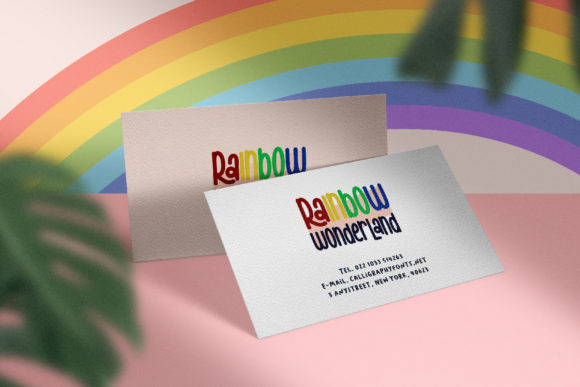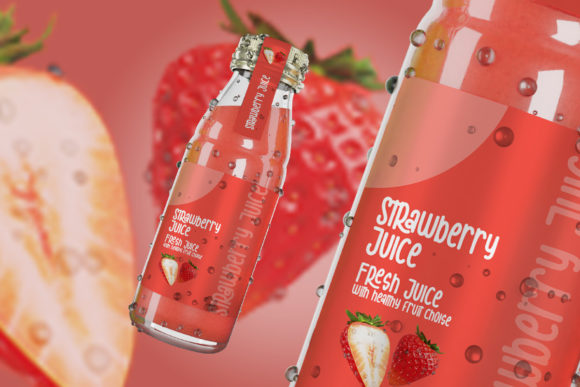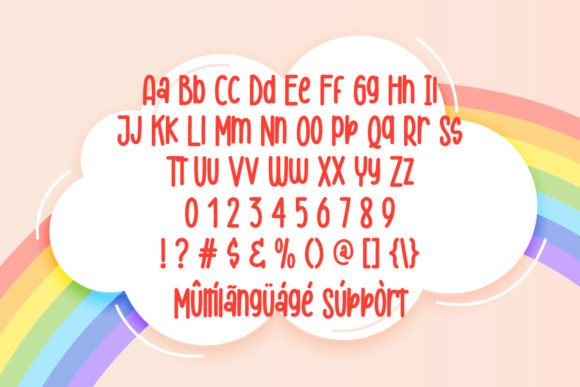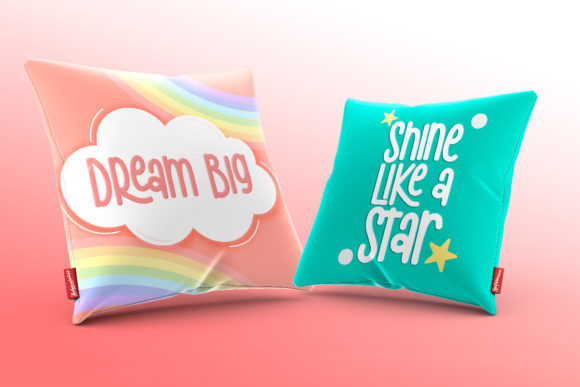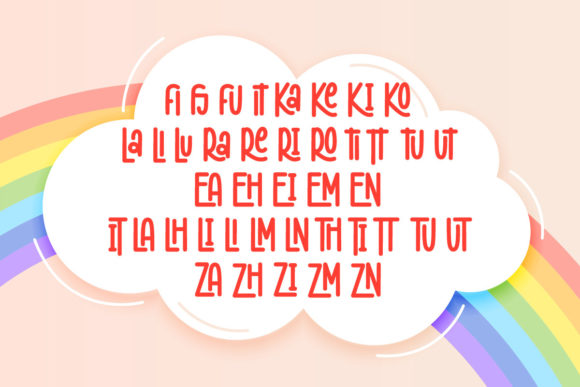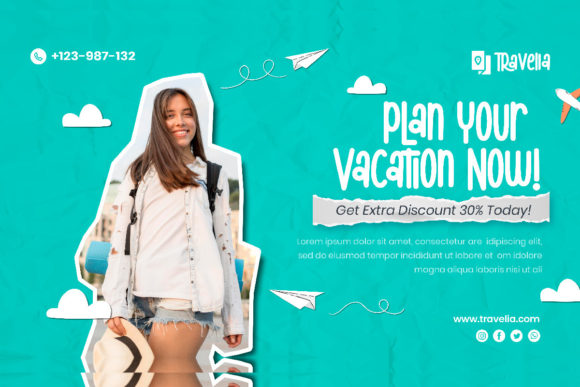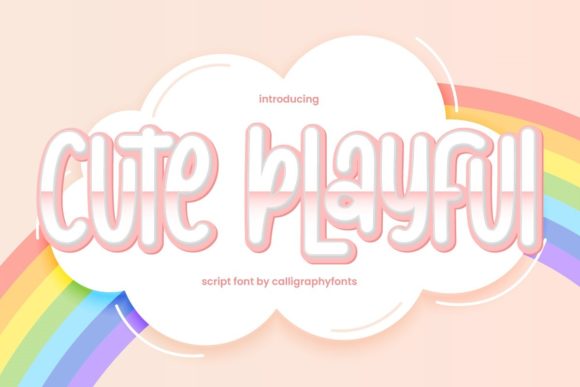
Cute Playful Font: Add a Touch of Whimsy to Your Creative Projects
Are you looking for a font that can add a dash of fun and friendliness to your creative projects? Look no further than the Cute Playful Font! This delightful display font is perfect for a variety of projects, from storybooks and magazines to children’s designs and more. With its cartoon/comic feel, this font is sure to bring a smile to your audience’s faces.
What Makes Cute Playful Font So Special?
The Cute Playful Font is designed with a playful and carefree spirit in mind. Its unique and quirky characters are reminiscent of classic cartoons and comics, making it an ideal choice for projects that require a touch of whimsy. Whether you’re working on a children’s book, a magazine, or a craft project, this font is sure to add a level of fun and personality to your design.
Key Features of Cute Playful Font
- Cartoon/Comic Feel: The Cute Playful Font has a distinct cartoon/comic feel that is sure to capture the attention of your audience.
- PUA Encoded: This font is PUA encoded, which means you can access all of the glyphs and swashes with ease. This makes it simple to customize your text and add your own personal touch.
- Display Font: The Cute Playful Font is a display font, making it perfect for headlines, titles, and other prominent text elements.
- Multipurpose: This font is versatile and can be used for a variety of projects, from storybooks and magazines to children’s designs and more.
The Cute Playful Font is a great addition to any designer’s or crafter’s toolkit. Its unique and playful characters make it an ideal choice for a variety of projects, including:
- Children’s Books: Add a touch of whimsy to your children’s book with the Cute Playful Font. Its cartoon/comic feel is sure to delight young readers.
- Magazines: Use the Cute Playful Font to add a playful touch to your magazine’s headlines and titles.
- Craft Projects: The Cute Playful Font is perfect for craft projects, such as making cards, gift tags, and other DIY crafts.
- Social Media Graphics: Add a playful touch to your social media graphics with the Cute Playful Font. Its fun and friendly characters are sure to grab the attention of your followers.
Tips for Using Cute Playful Font
Here are a few tips for using the Cute Playful Font in your projects:
- Use it as a Display Font: The Cute Playful Font is designed to be used as a display font, so use it to add emphasis to your headlines and titles.
- Experiment with Colors: The Cute Playful Font looks great in a variety of colors, so don’t be afraid to experiment and find the perfect color scheme for your project.
- Pair it with Other Fonts: The Cute Playful Font pairs well with other fonts, so try pairing it with a serif or sans-serif font to create a unique and interesting design.
The Cute Playful Font is a fun and friendly display font that is perfect for adding a touch of whimsy to your creative projects. With its cartoon/comic feel and PUA encoding, this font is sure to bring a smile to your audience’s faces. Whether you’re a designer or crafter, the Cute Playful Font is a great addition to your toolkit. So why not give it a try and see how it can add a level of fun and personality to your designs?